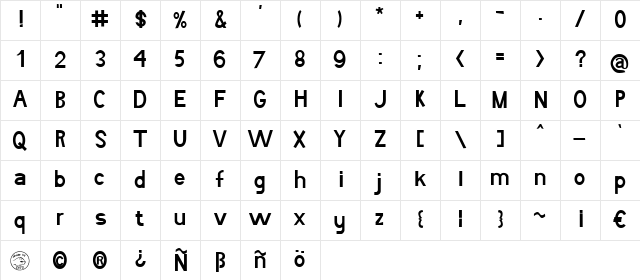
Boring Boron Regular
| Foundry | [Divide By Zero] Fonts |
| Designer | Tom Murphy 7 |
Design Context for Boring Boron Typeface
Boring Boron takes a measured approach to typography — its balanced proportions and neutral character make it a reliable workhorse for both digital and print work.